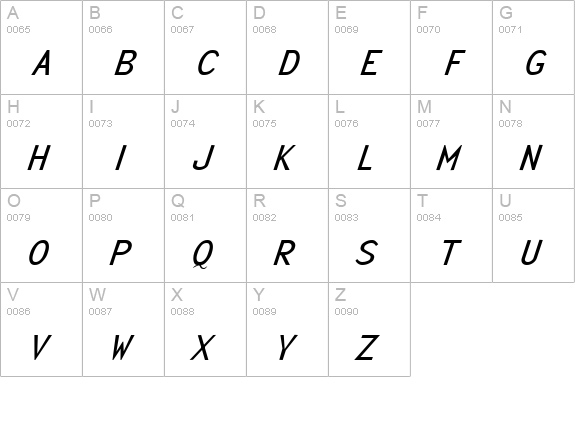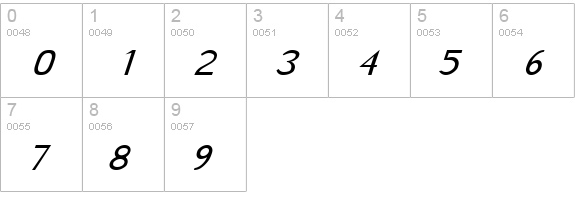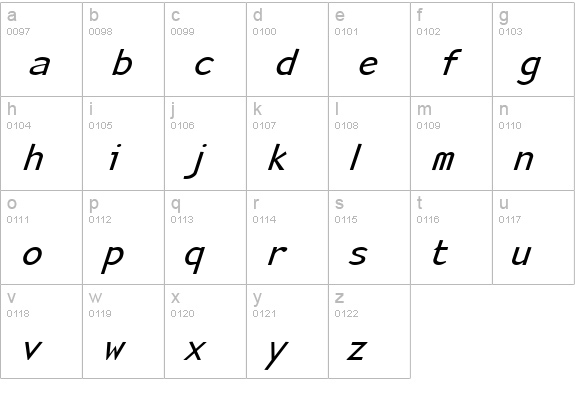
Monotony Italic is a distinctive, italic variant in the Monotony typeface family \xE2\x80\x94 well suited to design and typography projects.
Monotony Italic is a sleek and modern font that brings a touch of sophistication to any design project. Its elegant and flowing italic style adds a sense of grace and flair to your text, making it perfect for adding a touch of class to invitations, branding, or editorial designs. This versatile font is free to download at FontsMarket.com, making it accessible to designers of all levels. With its clean lines and stylish curves, Monotony Italic is sure to make a statement and elevate your designs to a whole new level. Whether you're creating a logo, a poster, or a website, this font is a great choice for adding a touch of elegance and refinement. Download Monotony Italic today and see how it can enhance your next project.